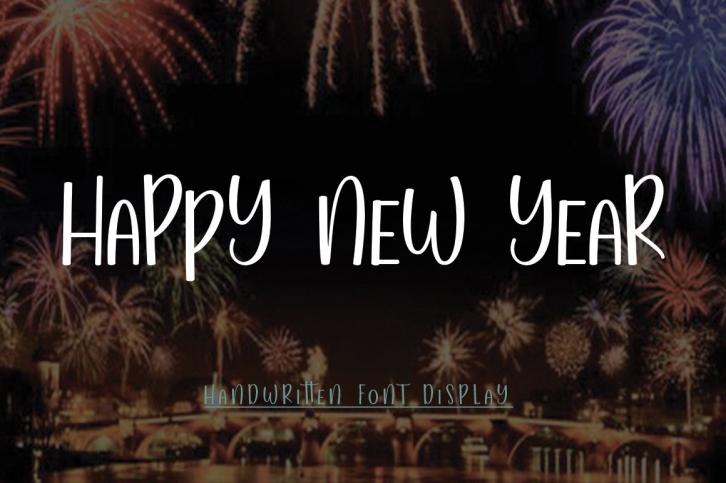
Heppy New Year I WEB is a great font that was designed by HerDesign. Imagine the amount of combinations you can create using this font! The archive is 8.80 MB and it was released on November 11, 2020. Heppy New Year I WEB looks beautiful on wedding invitations, greeting cards, logos, posters, labels, t-shirt designs, logos, business cards and is perfect for use in ink or watercolor works, fashion, magazines, packaging and food menus, children's books and more!